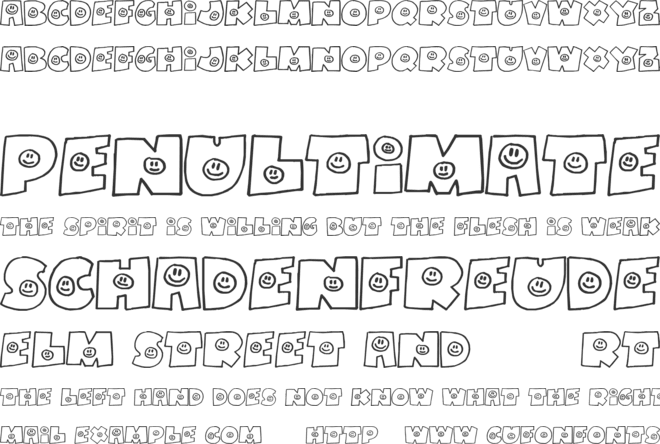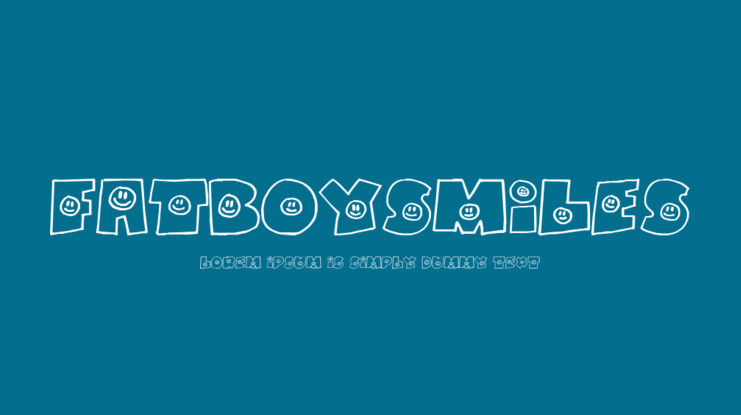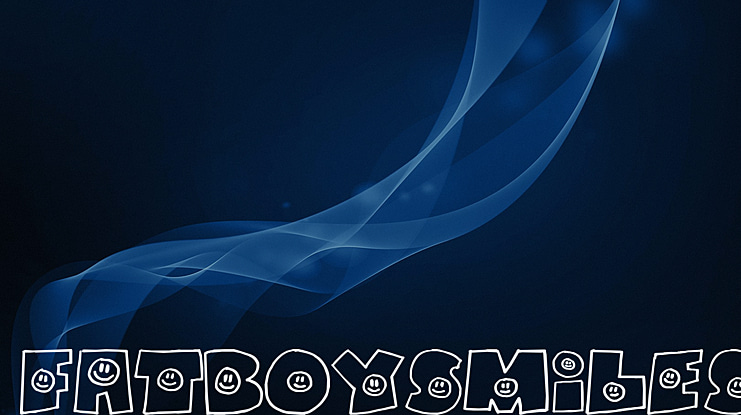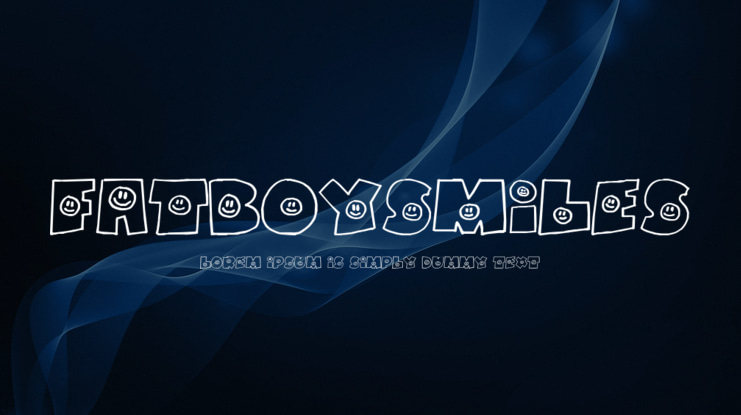
FatBoySmiles Font
Of my God, this font is an oldie! - It was made way back in early 1999. In many ways I don't really like this font, but due to many questions about the font...here it is again!